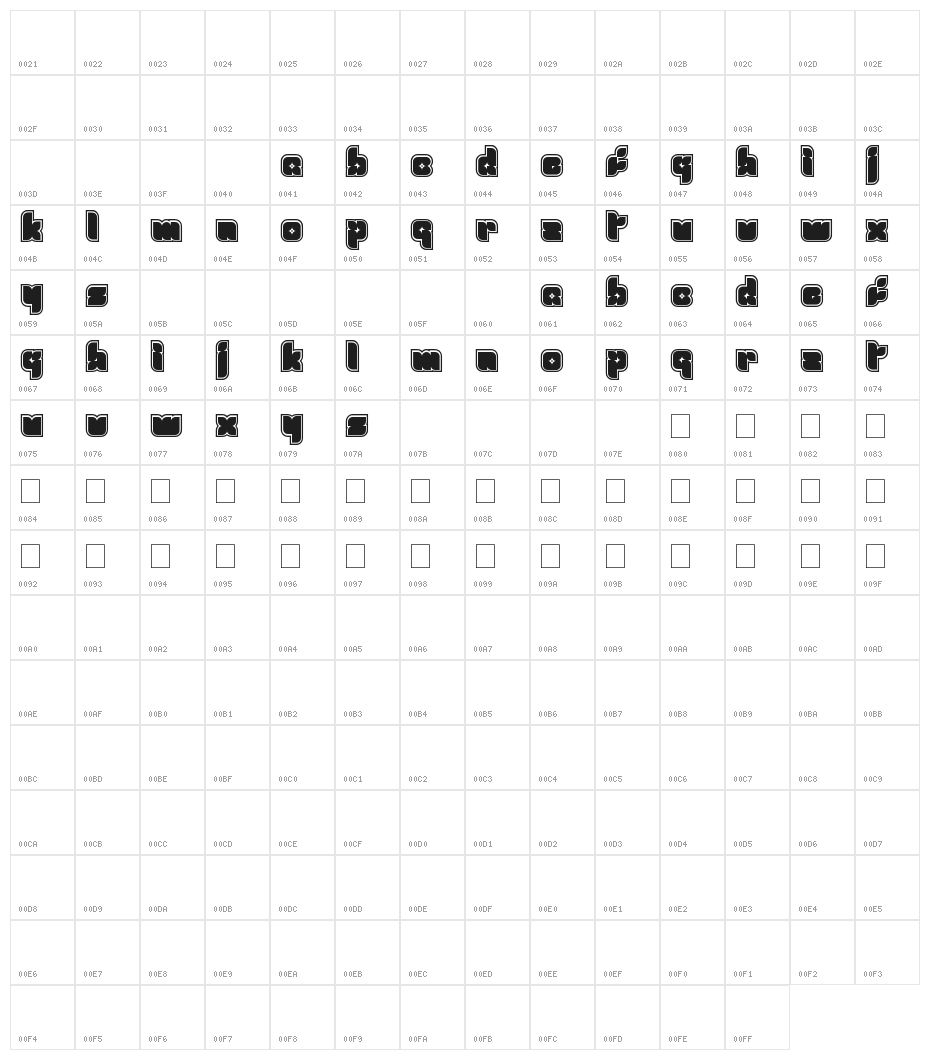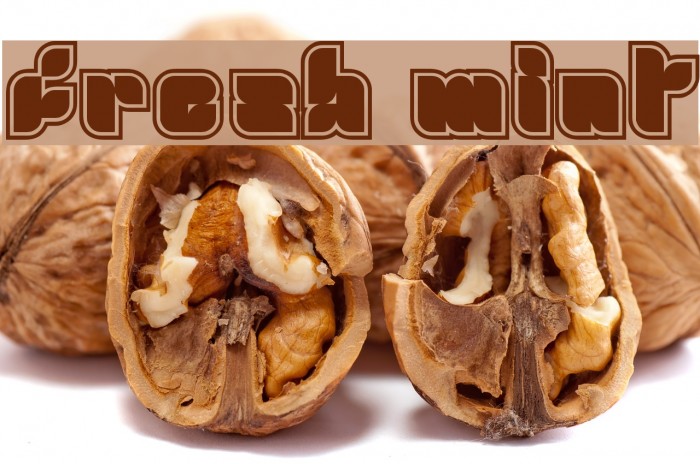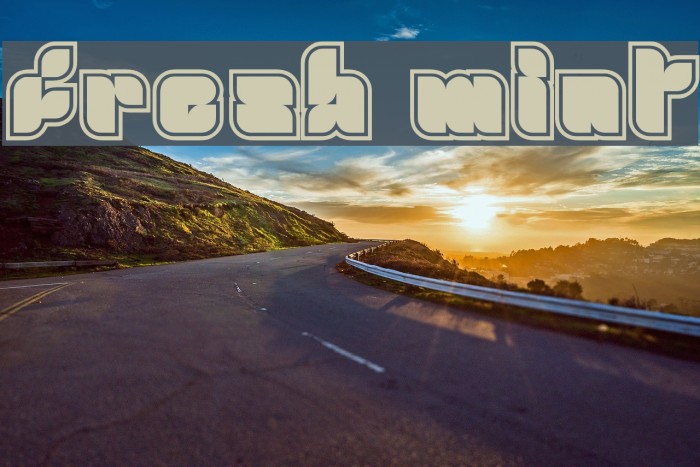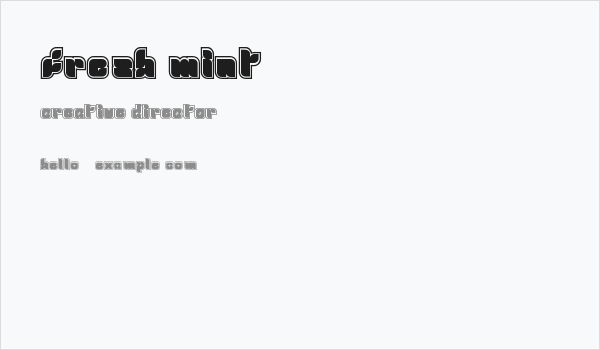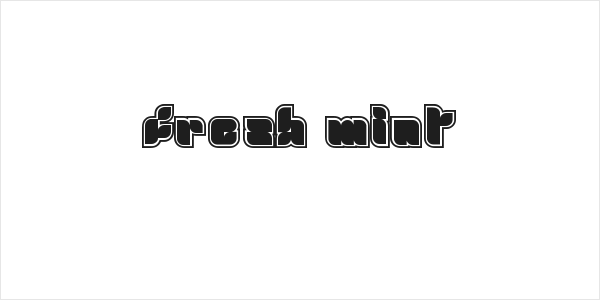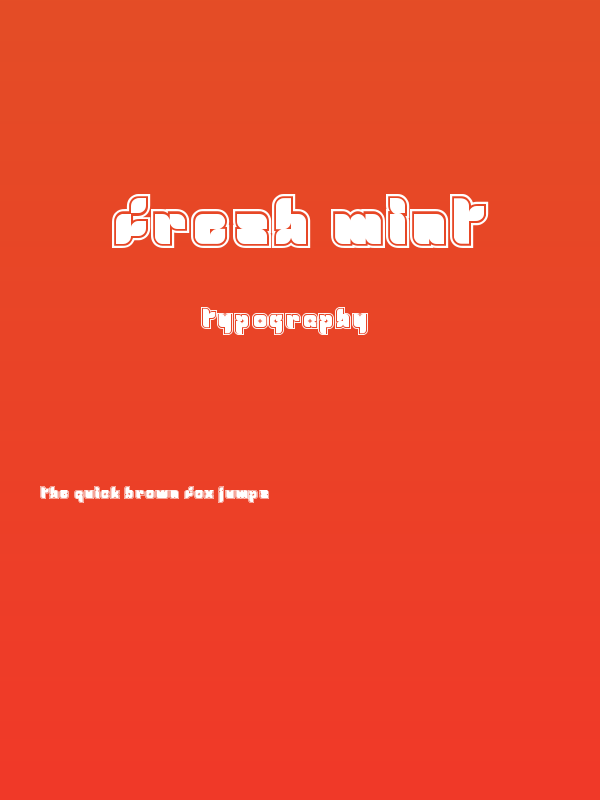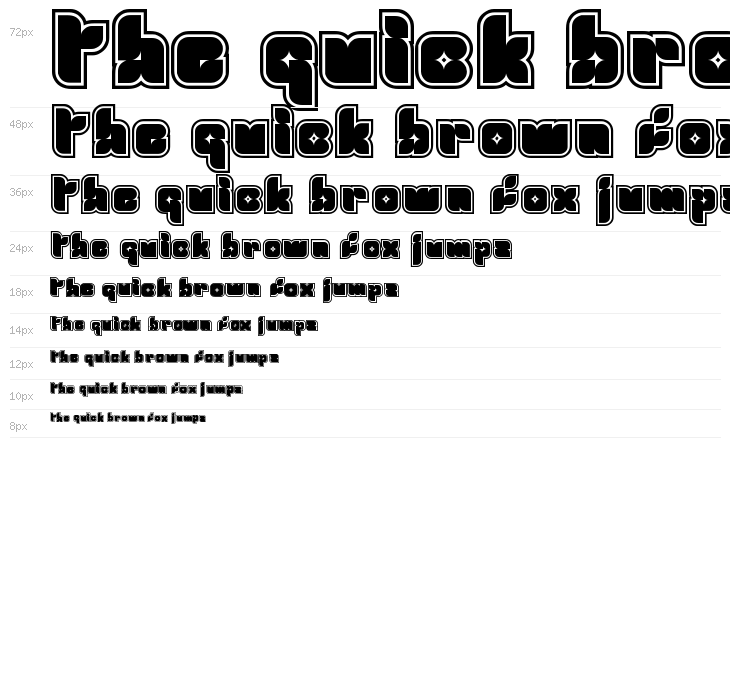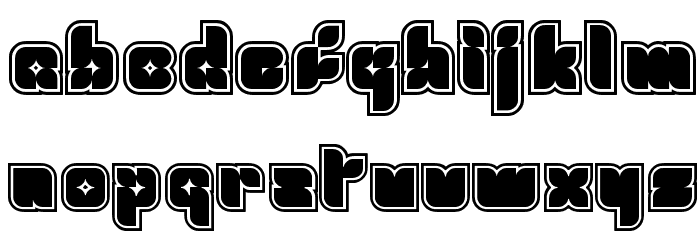
fresh mint Font
fresh mint Description
This font features a bold, geometric design with a unique, playful style. The characters are outlined with a thick border, creating a striking contrast between the filled and unfilled spaces. The letters have a blocky, angular appearance with sharp edges and corners, giving them a modern and edgy look. The font's design is consistent across both uppercase and lowercase letters, maintaining a cohesive and uniform appearance. The overall style is eye-catching and distinctive, making it suitable for projects that require a strong visual impact.